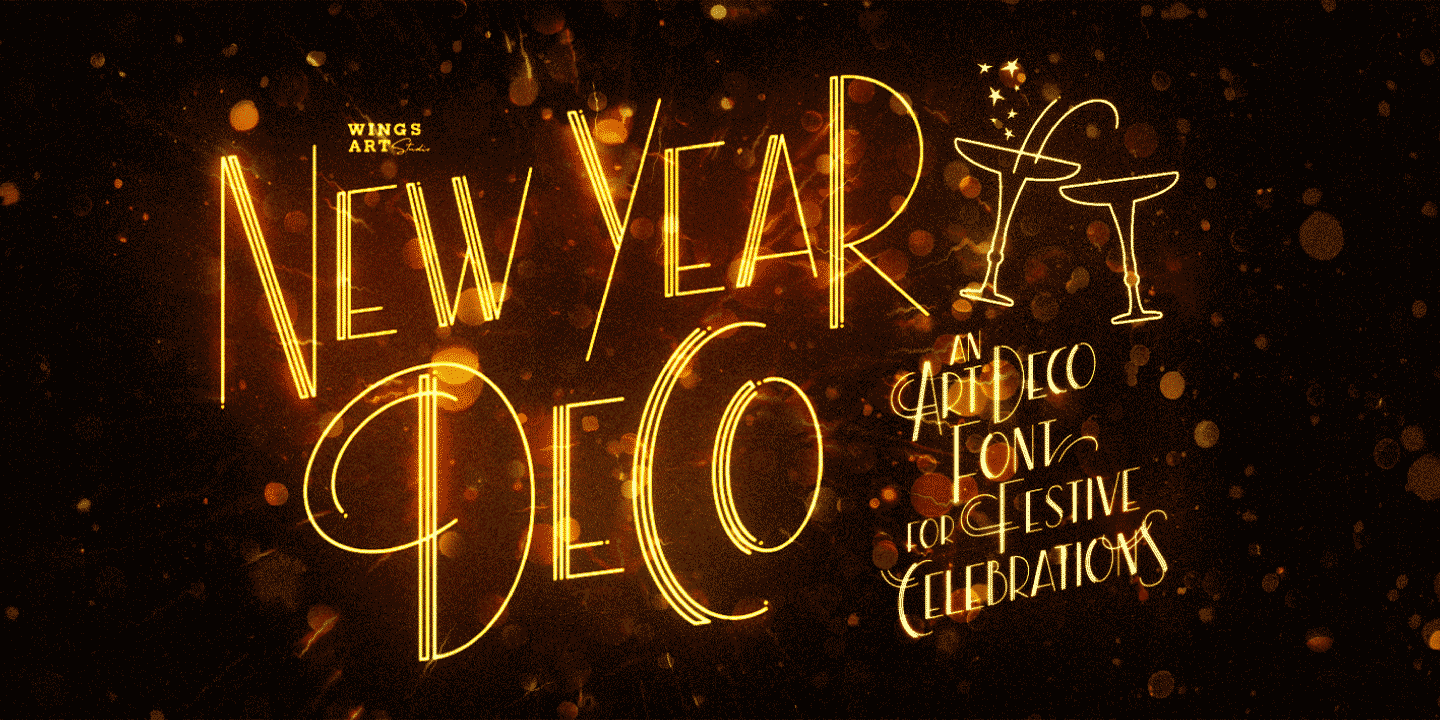
New Year Deco Font is ideal for festive celebration invitations, holiday party decorations, countdown event graphics, resolution goal planners, champagne brand packaging, New Year's Eve venue signage, festive greeting cards, celebration milestone materials, sparkler-themed designs, and any joyful project that captures the glittering excitement and hopeful optimism of new beginnings and fresh starts.
What makes New Year Deco Font exciting is its celebratory elegance that captures the sparkling magic of midnight celebrations and the hopeful anticipation of fresh new beginnings. This typeface embodies the essence of festive glamour with ornate letterforms that seem to shimmer with confetti and dance with the excitement of countdown moments. The font's jubilant character makes it perfect for brands and projects that want to communicate celebration, optimism, and the transformative power of marking meaningful moments with style and sophisticated festivity.
The New Year Deco Font family includes multiple weights and decorative variations, featuring light, regular, and bold versions along with ornamental flourishes and alternate characters inspired by Art Deco glamour and festive celebration motifs. This comprehensive collection allows designers to create elegantly celebratory typography that maintains the font's signature festive character while providing flexibility for various holiday and milestone celebration design applications.
When exploring authentic celebration typography, New Year Deco Font Free Download represents an exceptional opportunity to work with a typeface that genuinely captures the spirit of milestone celebrations and festive glamour. This font demonstrates innovative design thinking by incorporating the sophisticated elegance and joyful energy that define both Art Deco design principles and the contemporary appreciation for meaningful celebration and hopeful new beginnings.
Professional designers appreciate New Year Deco Font for its ability to instantly establish celebratory sophistication and festive elegance across various event and hospitality platforms. The font's glamorous character makes it particularly effective for event planners, luxury hospitality brands, and celebration services seeking to create memorable identities that resonate with audiences who value style and meaningful milestone celebrations.
The timeless appeal of New Year Deco Font lies in its perfect representation of celebratory elegance and hopeful optimism that continues to inspire people seeking meaningful ways to mark important transitions and fresh starts. This typeface serves as a powerful symbol of renewal and the human desire to celebrate life's precious moments with style and sophisticated joy.
For creative professionals working with celebration and hospitality brands, New Year Deco Font represents the ultimate typography solution that brings authentic festive glamour and celebratory elegance to any application, ensuring designs reflect the sparkling excitement and hopeful sophistication that define the most memorable milestone celebrations and new beginning festivities.